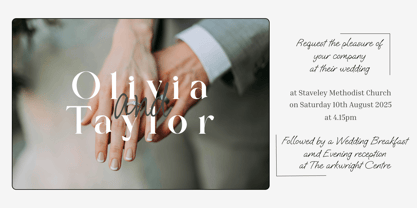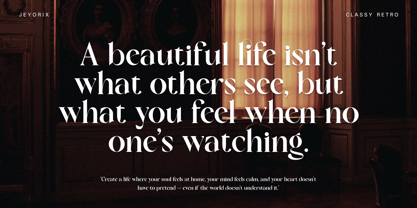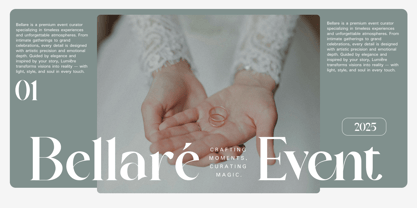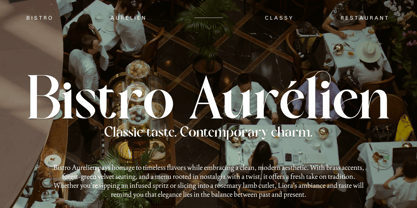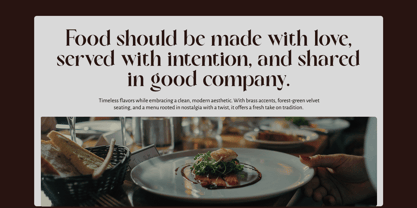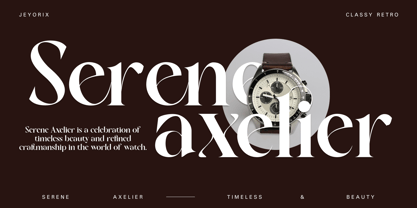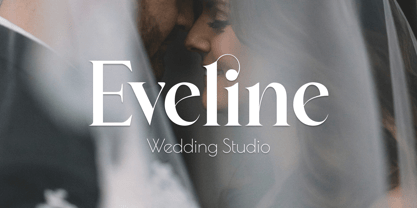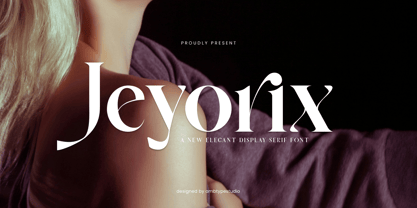
Jeyorix
by Ambtype Studio
The Jeyorix Font Family was designed by William Rizky Bahari and published by Ambtype Studio. Jeyorix contains 2 styles and family package options. More about this family
Jeyorix is a refined serif font that blends sharp elegance with delicate craftsmanship. Designed with finely tapered joins and slightly organic curves, it offers a harmonious balance between structure and softness. Its proportional letterforms and pointed terminals evoke a sense of timeless class and vintage charm, making it the perfect choice for high-end branding, editorial designs, luxurious packaging, and stylish logos. Complete with elegant ligatures and multilingual support, Jeyorix elevates your visual identity with a touch of sophistication and character.
Designers: William Rizky Bahari
Current Foundry: Ambtype Studio